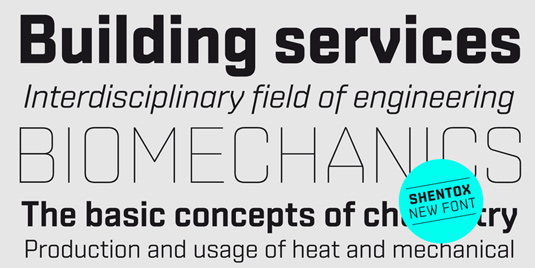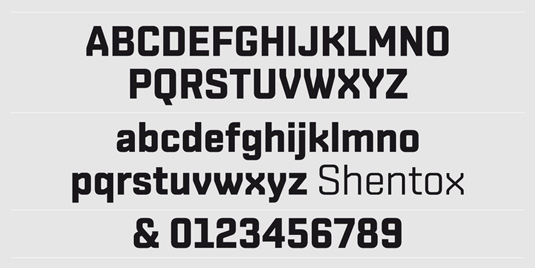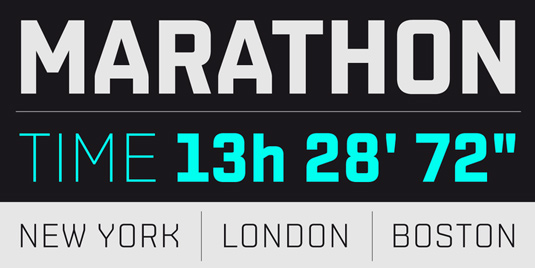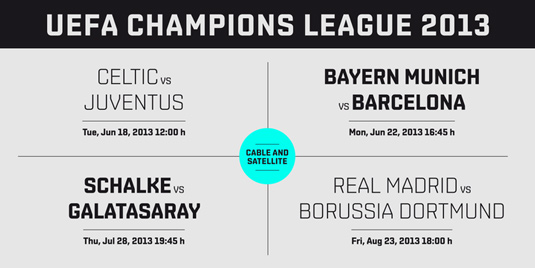
Shentox by Eduardo Manso
Type designer Eduardo Manso created contemporary typeface Shentox after a visit to London back in 2008. Inspired by the square font used on British car registration plates, Manso began working on his font immediately and has been developing it ever since.
"Despite the starting point being inspired by simple, everyday car plates, the font soon evolved into something fine and very rich in detail," he comments on MyFonts. "Even though the square genre is very restrictive, Shentox is a highly legible contemporary font with a full range of weights, useable not only as a display family for headlines and posters, but as a distinct, clean font family for branding and general editorial use."